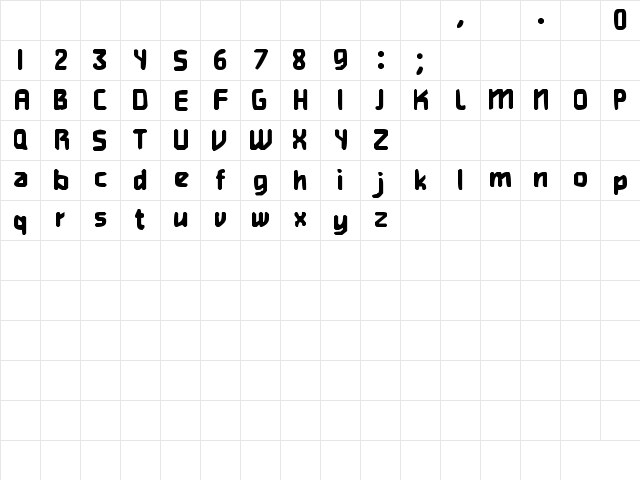
Heavy Weight Gamer Regular
Design Context for Heavy Weight Gamer Typeface
Heavy Weight Gamer takes a measured approach to typography — its balanced proportions and neutral character make it a reliable workhorse for both digital and print work.